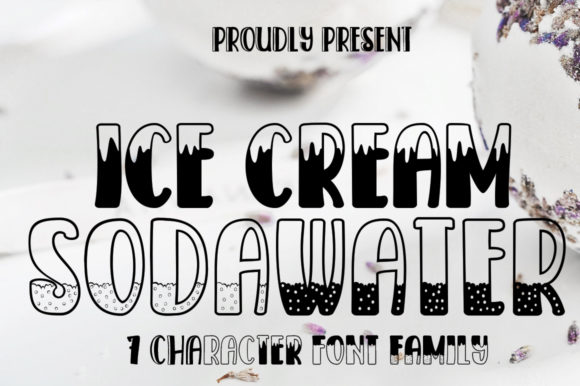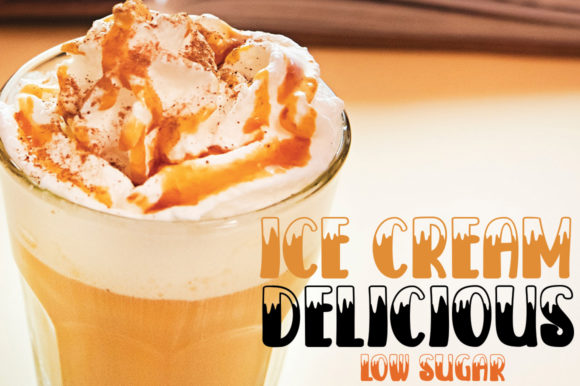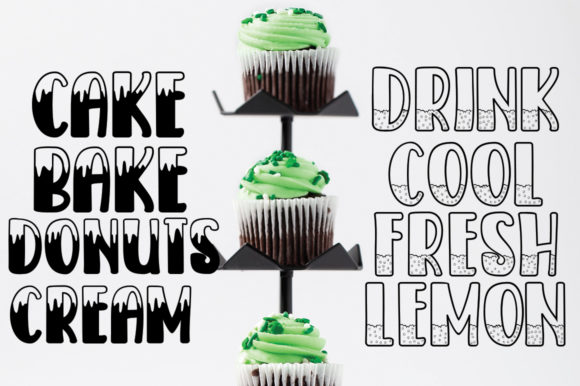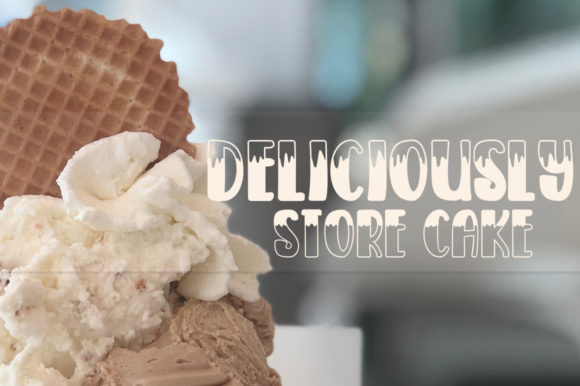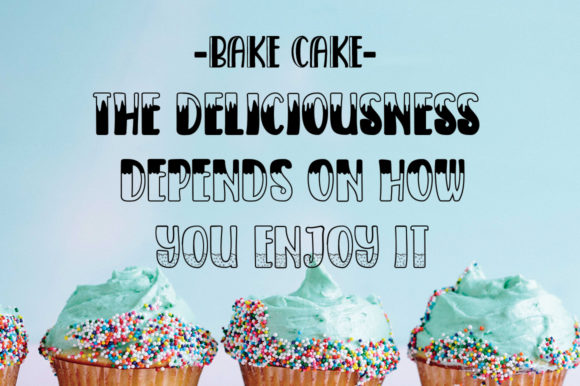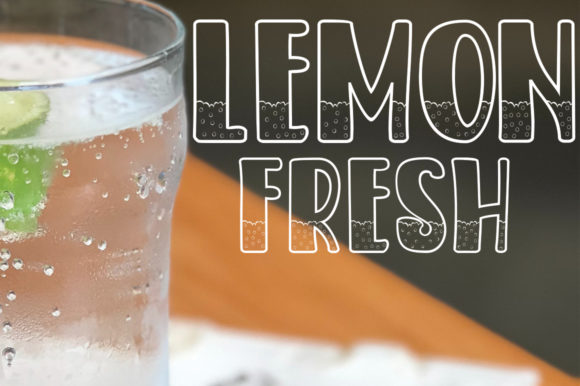
Introduction to Ice Cream SodaWater Font
Ice Cream SodaWater embodies fun, quirkiness and authenticity.
This enchanting display font will turn any creative idea into a true standout .
Key Features of Ice Cream SodaWater Font